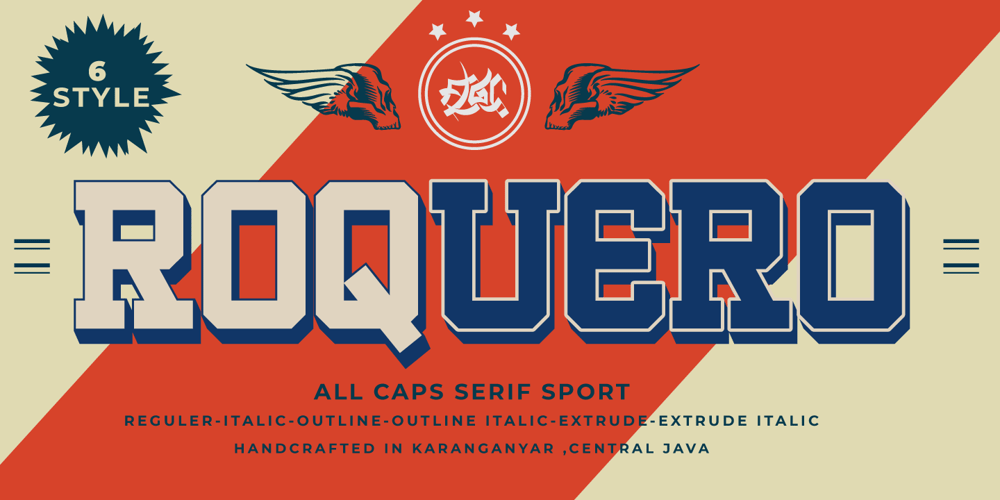
Roquero Font Family was designed by Vava Aryanto and published by FallenGraphic. Roquero contains 5 styles and family package options. Roquero is an amazing, sport styled, display font and will make your design more beautiful and powerful. This font is suitable for any design like branding, quotes and more